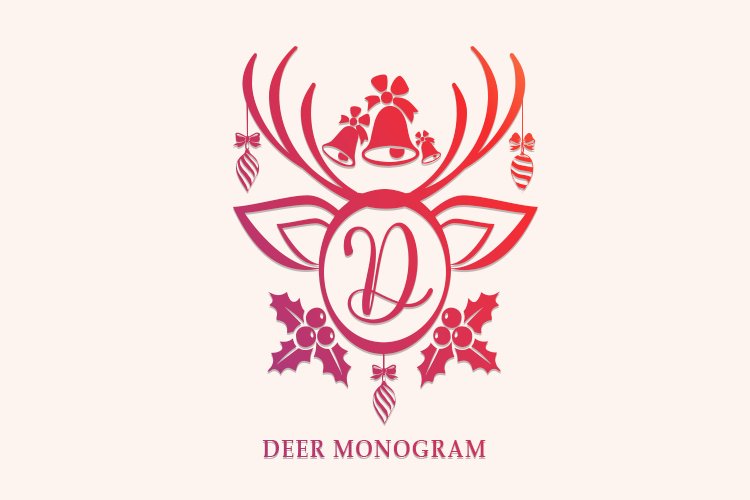
Deer Monogram is a sweet Christmas Holiday inspired decorative font. Fall in love with its authentic feel and use it to create gorgeous wedding invitations, beautiful stationary art, eye-catching social media posts, and cute greeting cards.